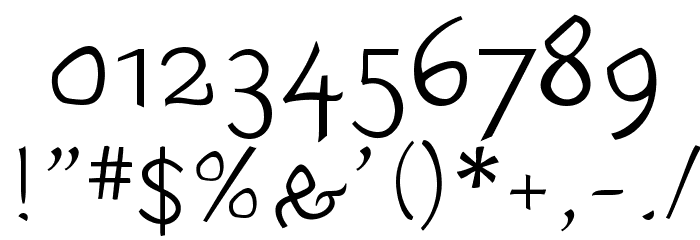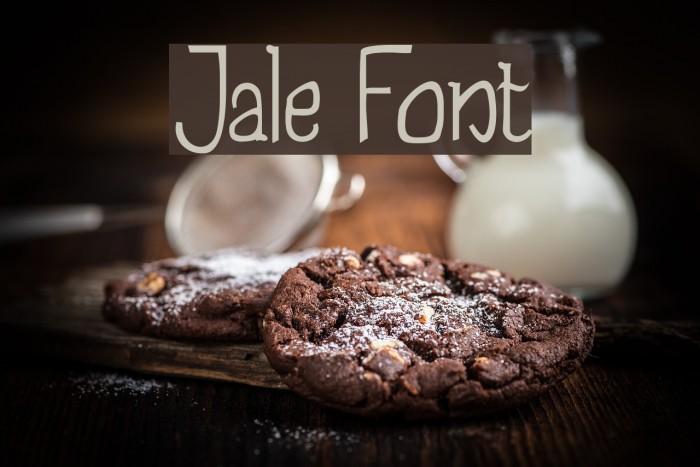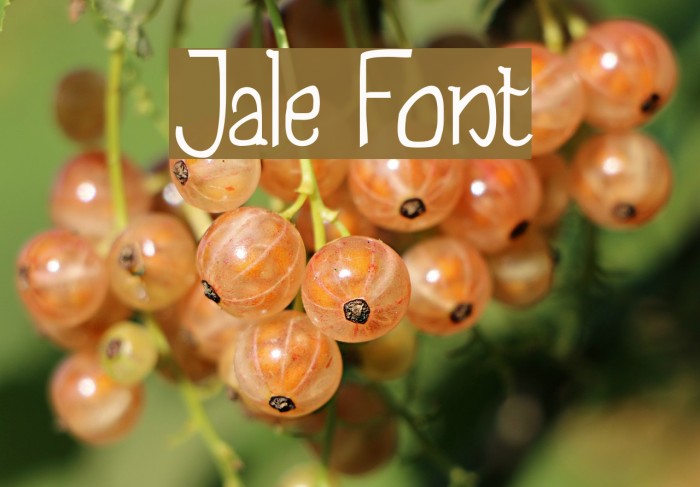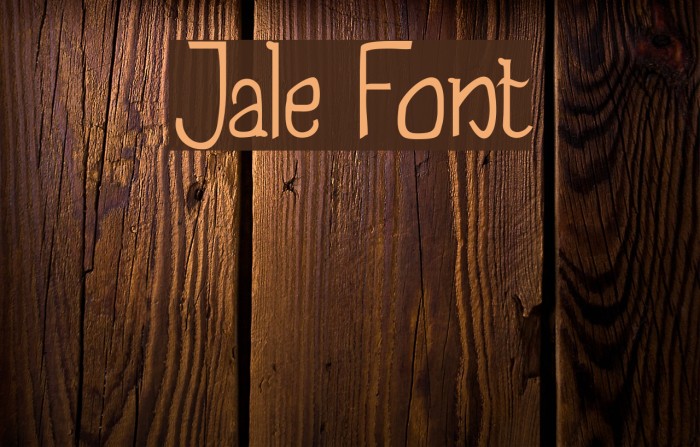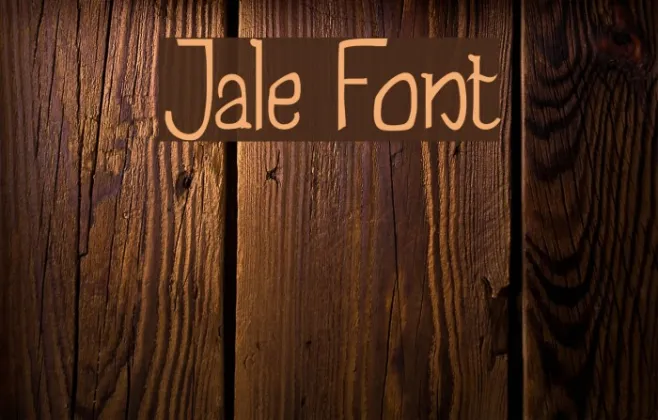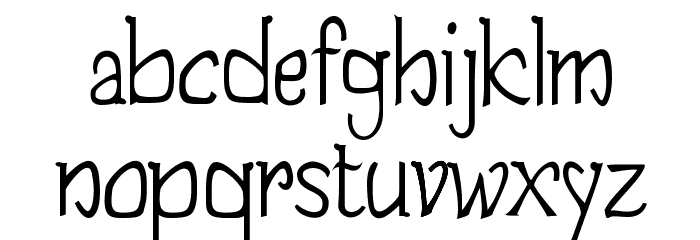
Jale Font
This font features a playful and whimsical style, characterized by its unique and irregular letterforms. The uppercase letters are tall and slightly narrow, with a hand-drawn quality that adds a sense of charm and individuality. The lowercase letters maintain this playful aesthetic, with some characters exhibiting unexpected curves and angles. The numerals are bold and distinct, complementing the overall style of the font. Special characters are creatively designed, enhancing the font's decorative appeal. This font's distinctive style makes it suitable for projects that require a touch of creativity and personality.
A playful and whimsical font with unique, hand-drawn letterforms.
• Proposed Projects: Ideal for children's books, creative branding, playful invitations, and artistic posters.
• Category: Decorative/Display
• Contrast: Medium
• Overall Style: Whimsical, Playful
• Use Case: Headlines, Logos, Posters